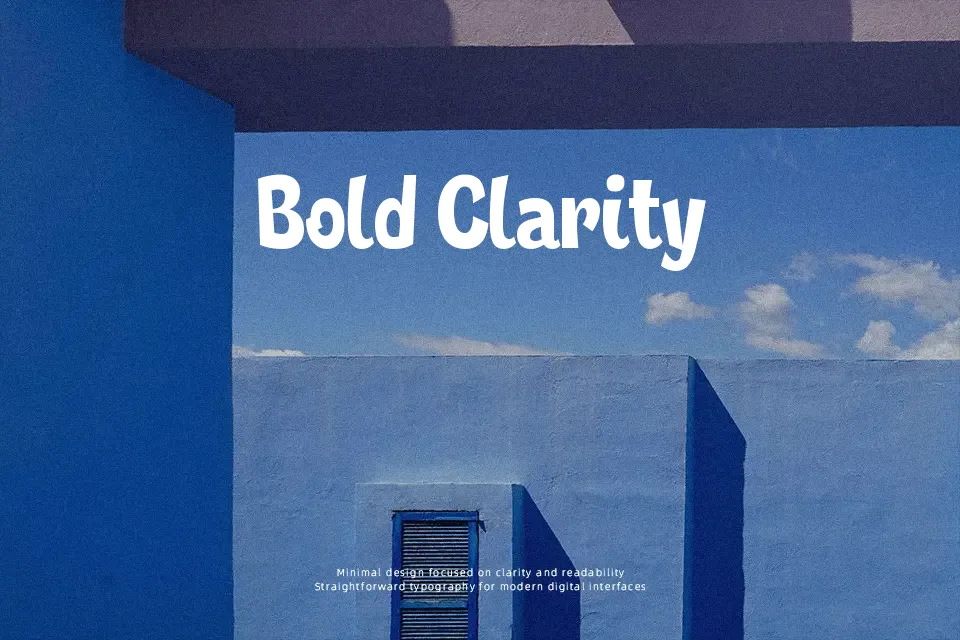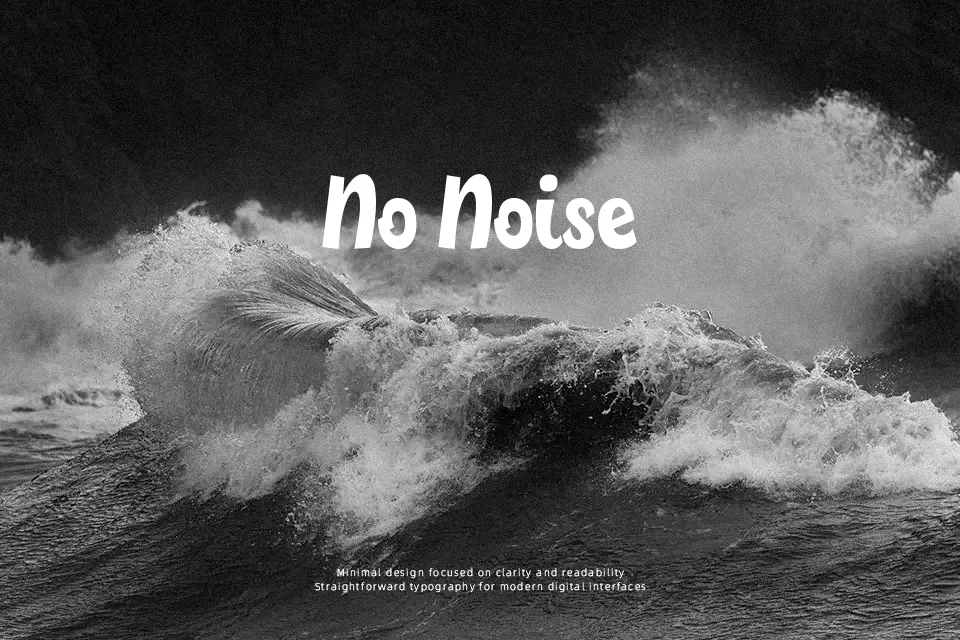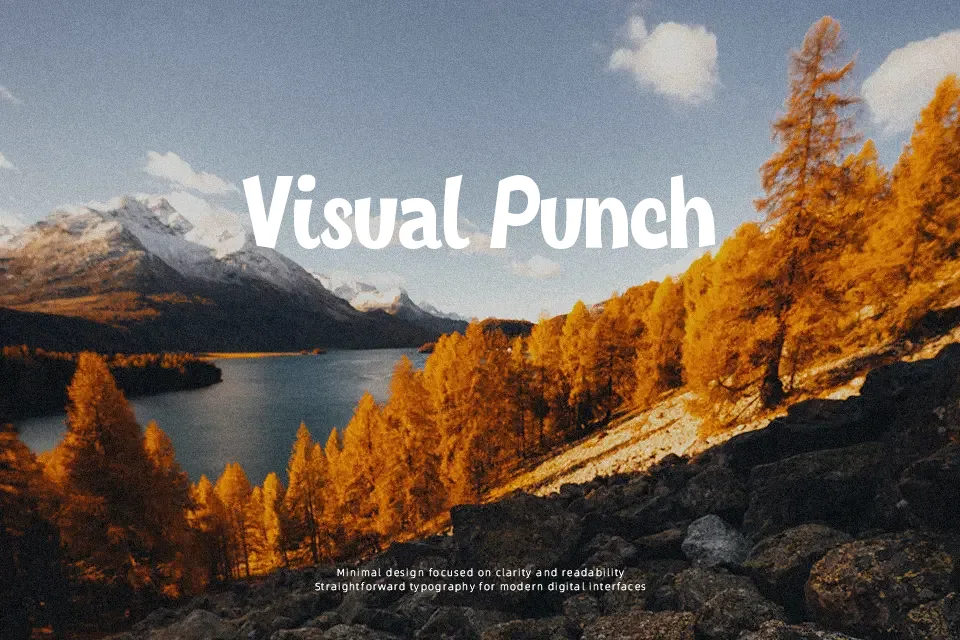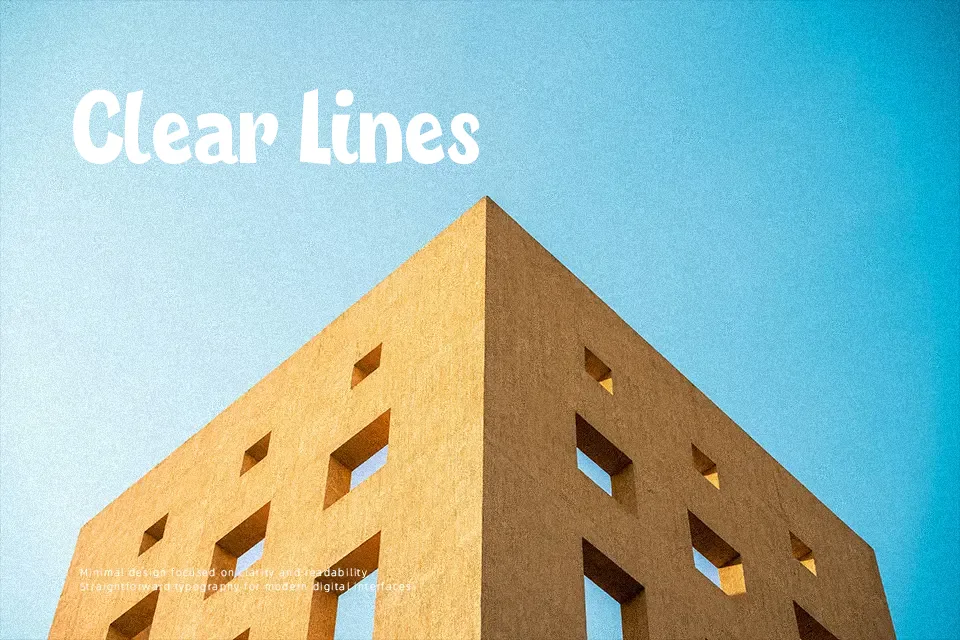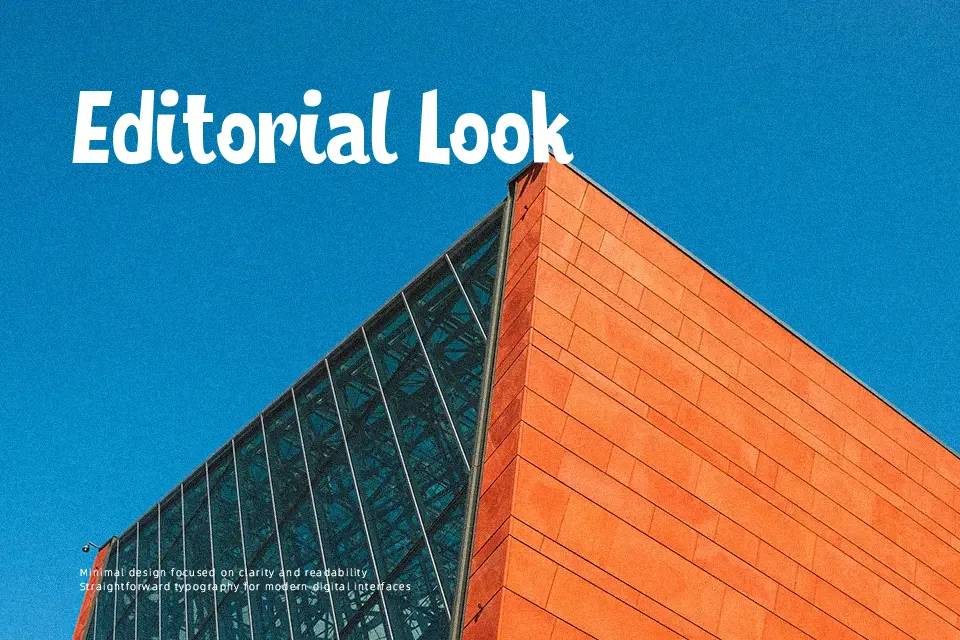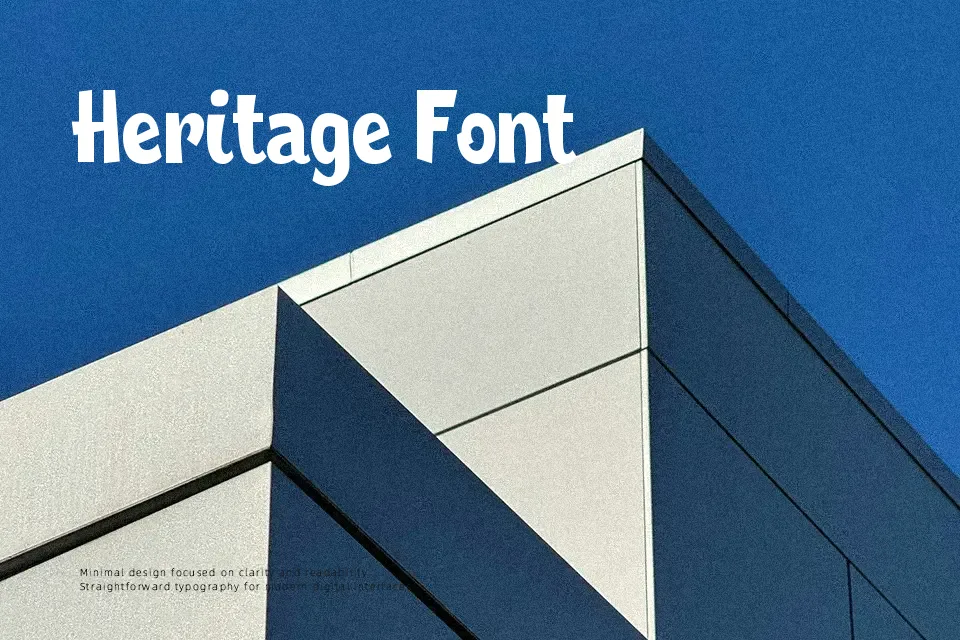
Chocolate Grande Font
Chocolate Grande Font features thick, rounded letterforms with smooth outlines and a relaxed, casual baseline structure. The heavy stroke weight creates substantial visual presence, while generous character spacing prevents dense overlapping in short headlines and display banners. Consistent loop geometry and softly curved terminals give the glyph set a cohesive, approachable rhythm across uppercase and lowercase pairings. This typeface performs exceptionally well on children’s merchandise, food packaging labels, and festival signage where immediate engagement is required. However, the bulky weight and tight inner counters significantly reduce legibility in continuous text blocks and small interface captions.
Best For: children book covers, dessert packaging, snack food branding, cartoon poster titles
Not Ideal For: dense body text, corporate documents, mobile interface captions, technical manuals
Perfect for branding, headline, and kids, with a bold and cartoon style.